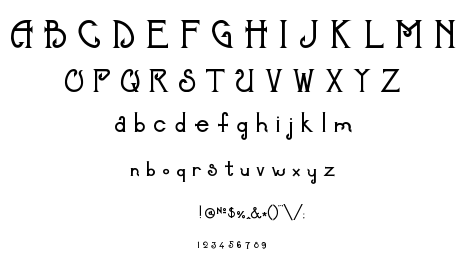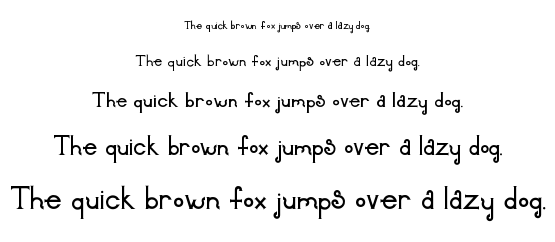
My friend made a short movie of herself doing the Charleston… we couldn’t find a really good freeware font for the dvd, so i made one… i just had to give it a darker feel, though… it comes with a full upper and lower case alphabet, numerals, and punctuation…